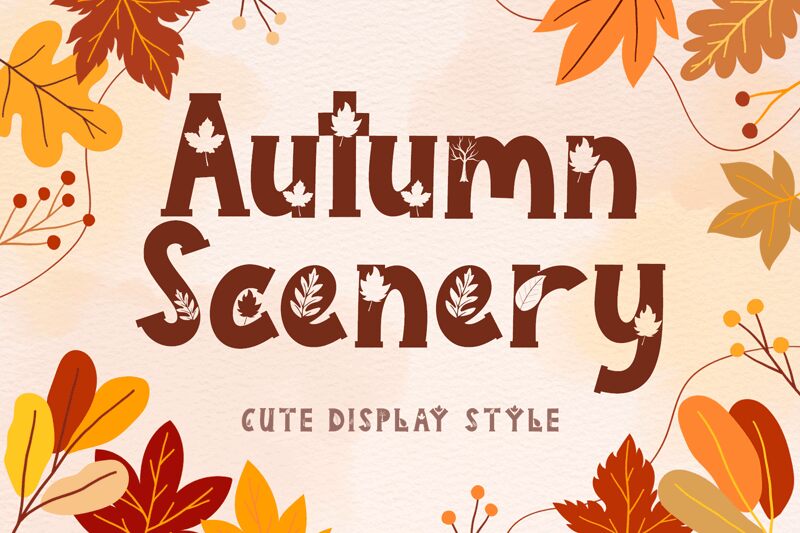
Autumn Scenery font by Yoga Letter is a decorative rounded font with visual texture and thematic nature imagery. Its casual feel and warm aesthetic combine contemporary appeal with seasonal inspiration for an expressive, friendly style. Lettering styles include thematic decorations of leaves and swirling embellishments stylized for a dashing and interesting effect. This font family without serifs contains single font style and has a decorative style.
Rounded corners, fluid transitions, nature-inspired elements, and a gentle style allow Autumn Scenery to introduce beauty to a wide range of projects. Despite the seasonal touch which is suitable, for example, for autumn-specific greetings and promotions, other projects could greatly benefit from an enchanting atmosphere that this font brings. Use it for fashion, product packaging, posters, event invitations, lectures, video titles, or art projects.